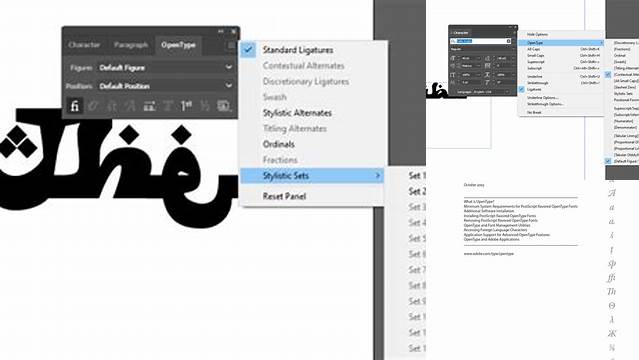
OpenType Fonts In Photoshop: Your Ultimate Guide
Hey guys, ever wondered how to make your text in Photoshop look absolutely stunning? Well, one of the best ways to do that is by using OpenType fonts. They're like the superheroes of the font world, offering a ton of extra features that can seriously level up your designs. In this article, we'll dive deep into how to use OpenType fonts in Photoshop, exploring their benefits, how to install them, and how to unlock their hidden potential. Get ready to transform your typography and impress everyone with your design skills!
What are OpenType Fonts and Why Should You Care?
So, first things first: what are OpenType fonts? Think of them as the advanced cousins of TrueType fonts. They're a digital font format developed by Adobe and Microsoft, and they're designed to give you way more control over your text. Unlike the older TrueType fonts, OpenType fonts can contain a huge array of characters, including thousands of glyphs (individual characters), swashes (fancy flourishes), ligatures (special characters where two or more letters are joined), and even stylistic sets (different variations of the same letter). That's why it's so important to know how to use OpenType fonts in Photoshop, to get the most of them.
OpenType fonts are your secret weapon for creating unique and professional-looking designs. They often include support for multiple languages, making them incredibly versatile. Whether you're designing a logo, a website, a poster, or anything in between, OpenType fonts can help you achieve a polished and eye-catching result. OpenType fonts offer a wider range of characters, including many special characters, swashes, and ligatures. This means you have more options for customizing your text and making it look exactly the way you want. And when you learn how to use OpenType fonts in Photoshop, you'll be able to bring your designs to life.
Think about the little details. Do you want a fancy 'f' with a swish on the end? Or maybe you need a special character for a specific language? OpenType fonts have you covered. They also provide excellent support for different languages, which is a huge plus if your work needs to reach a global audience. OpenType fonts are based on the Unicode standard, which supports a massive number of characters, far more than older font formats. This means they can handle a wide variety of languages and special symbols, making your designs more accessible and versatile. Another great thing about OpenType fonts is their quality. Because they're based on outlines, they scale smoothly without losing quality, so your text will always look sharp and crisp, no matter the size. That's why understanding how to use OpenType fonts in Photoshop is a must-have for any designer.
Benefits of Using OpenType Fonts
Let's break down the key advantages of using OpenType fonts in your designs. First off, the sheer variety of characters is a game-changer. You're not just limited to the standard alphabet. OpenType fonts include things like:
- Ligatures: These are special characters where two or more letters are combined to create a unique look (think of the 'fi' or 'fl' combinations). They make your text look smoother and more professional.
- Swashes: These are decorative flourishes that can be added to the beginning or end of letters. They're perfect for adding a touch of elegance or personality to your text.
- Stylistic Sets: These are different variations of the same font, allowing you to change the look of your text without having to switch fonts. Great for creating different moods or styles.
- Alternative Glyphs: You can replace certain letters with different versions to create different looks. They add an extra level of customization.
Next up is the language support. OpenType fonts often support multiple languages, which is fantastic if you're designing for a global audience. It saves you the hassle of finding separate fonts for each language. And finally, the quality. OpenType fonts are designed to scale smoothly, so your text will look crisp and clean no matter the size. This is super important for both print and web designs. OpenType fonts are incredibly versatile. They're like a Swiss Army knife for your typography, offering a huge range of features that can elevate your designs. If you're looking for more control over your text, these are the way to go. Now you're ready to know how to use OpenType fonts in Photoshop to take your designs to the next level!
Installing OpenType Fonts in Photoshop: The Easy Steps
Alright, now that you know why OpenType fonts are so awesome, let's get you set up! Installing fonts in Photoshop is a breeze, so don't worry if you're new to this. Here's the lowdown:
Finding and Downloading Fonts
First things first, you need to find some fonts! There are tons of websites out there that offer OpenType fonts, both free and paid. Some of the best places to look include Google Fonts, Adobe Fonts (if you have a Creative Cloud subscription), Font Squirrel, and DaFont. When you find a font you like, make sure it's in the OpenType format (.otf or .ttf). The best choice is to download .otf files. They tend to be more versatile and offer the most features.